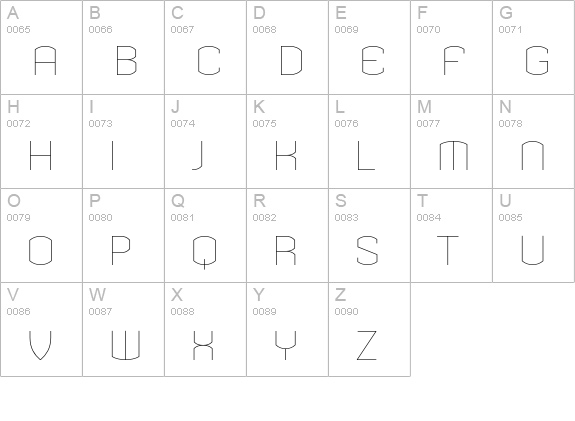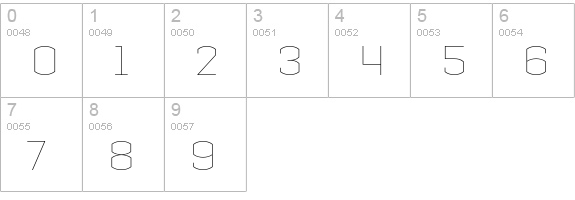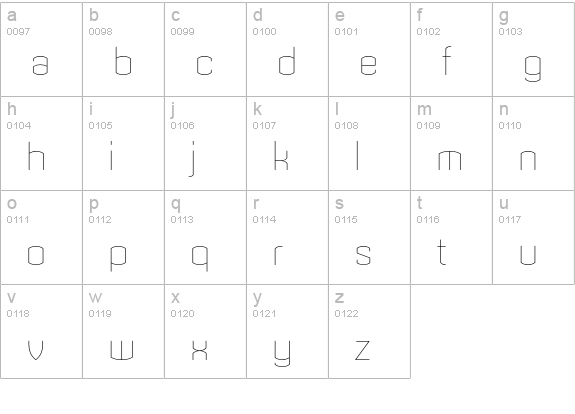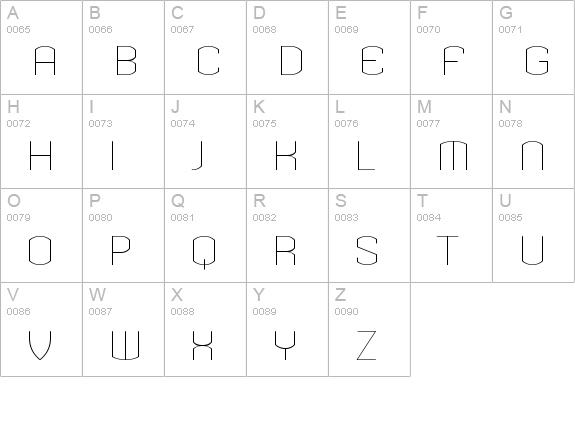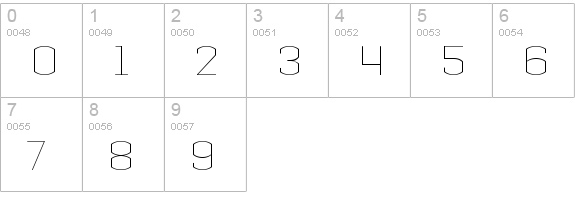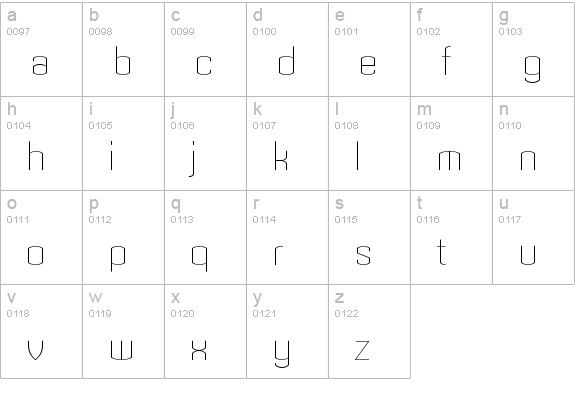
Armada-Thin Font Details
Armada-Thin is a delicate, low-contrast variant in the Armada typeface family \xE2\x80\x94 well suited to fashion editorial, minimal branding, and high-contrast display.
Introducing Armada-Thin, a sleek and modern font that exudes sophistication and elegance. With its delicate lines and graceful curves, Armada-Thin is perfect for adding a touch of refinement to any design project. Whether you're creating a logo, designing a website, or crafting a special invitation, this font will elevate your work to the next level. What's even better is that Armada-Thin is available for free download at FontsMarket.com. Yes, you read that right - you can enhance your designs with this exquisite font at no cost at all. Don't miss out on this incredible opportunity to access a high-quality font for free. Download Armada-Thin today and let your creativity soar.